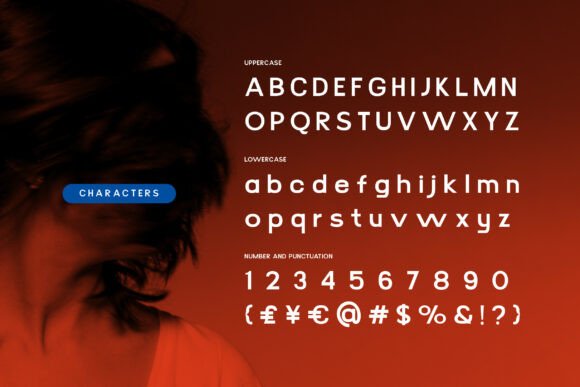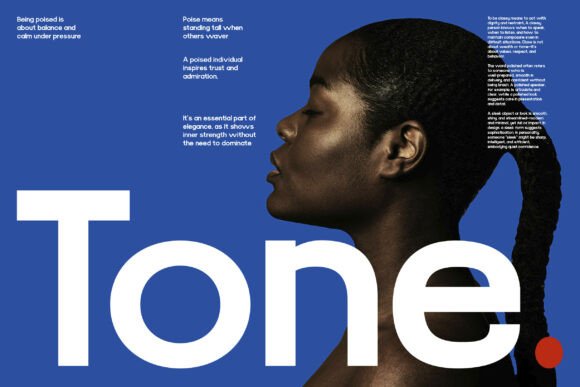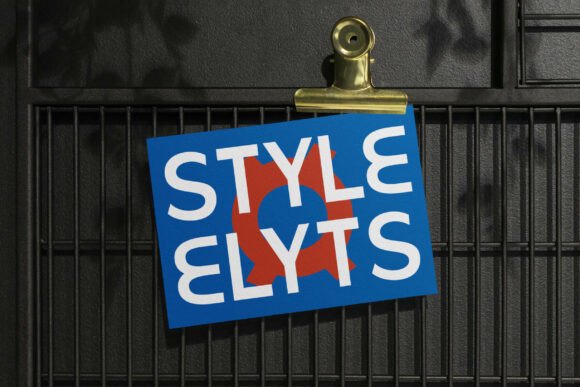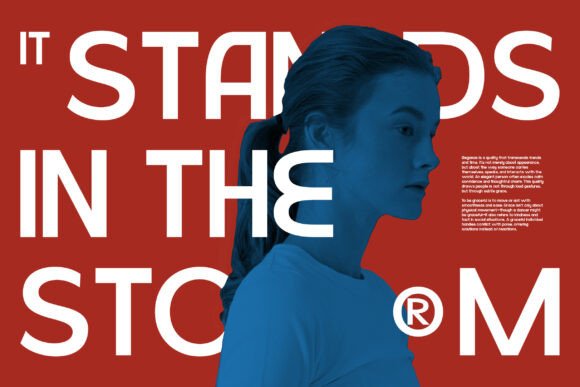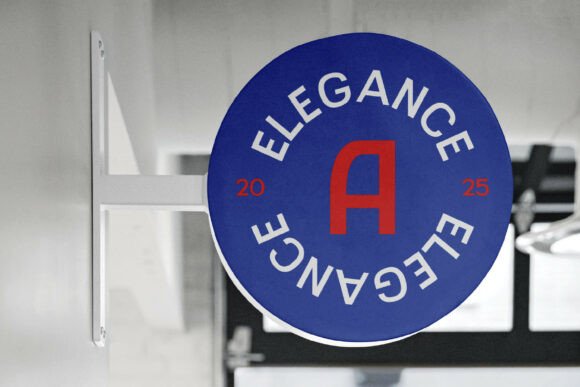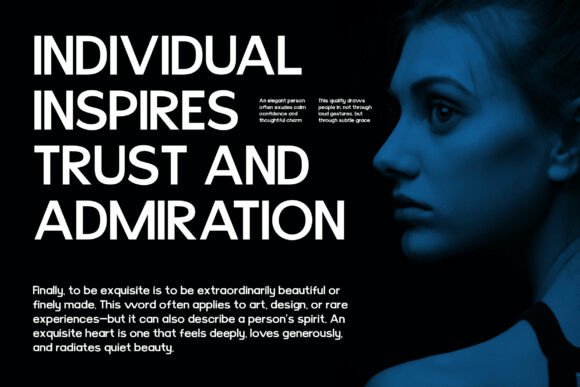
Introducing Elderino Font: The Epitome of Modern Minimalism and Sophistication
In the realm of typography, few fonts manage to strike a balance between modern minimalism and stylish sophistication as effortlessly as Elderino. This bold sans serif typeface has been meticulously designed to make a statement, making it the perfect choice for impactful headlines, clean branding, and a myriad of design applications that demand a confident and contemporary visual voice.
Design Philosophy and Features
Elderino’s design philosophy revolves around the fusion of sleek curves and geometric structures. This harmonious blend results in a highly versatile typeface that excels in both digital and print mediums. The font’s bold and sans serif characteristics ensure that it stands out, commanding attention and exuding a sense of modernity and sophistication.
Key features of Elderino include:
- Bold and Impactful: Designed to make headlines and titles pop, Elderino is the go-to choice for designers looking to create a lasting impression.
- Sans Serif Elegance: Its clean lines and sans serif design contribute to a sleek and contemporary look, perfect for fashion, tech, and creative branding.
- Versatile: Suitable for a wide range of applications, from fashion lookbooks and editorial layouts to modern packaging, tech branding, and creative portfolios.
- Geometric Sophistication: The geometric structure of Elderino lends it a sophisticated edge, making it ideal for high-end campaigns and luxury branding.
Applications of Elderino Font
The versatility of Elderino makes it a valuable asset for designers across various industries. Here are some of the key areas where Elderino truly shines:
Fashion Lookbooks and Editorial Layouts
In the fashion world, presentation is everything. Elderino’s stylish and modern aesthetic makes it perfect for fashion lookbooks, editorial spreads, and magazine titles, where standing out is crucial.
Modern Packaging and Tech Branding
For modern packaging and tech branding, a font that communicates innovation and sleekness is essential. Elderino’s geometric and bold features make it an excellent choice for product labels, tech company logos, and UI/UX interfaces.
Creative Portfolios and High-End Campaigns
Creatives and brands looking to showcase their work or launch high-end campaigns need a typeface that speaks of professionalism and style. Elderino, with its confident and contemporary voice, is tailored to meet these demands.
Why Choose Elderino?
Choosing Elderino for your design projects comes with several benefits:
- Legibility: Its clear and bold design ensures that messages are conveyed effectively, making it suitable for both digital screens and print.
- Uniqueness: Elderino stands out in a sea of sans serif fonts, offering a unique blend of modernity and sophistication.
- Versatility: From logos and branding to UI/UX and editorial design, Elderino adapts seamlessly across various mediums.
Elderino is more than just a font; it’s a design statement. Its bold sans serif presence, combined with a sleek and geometric structure, makes it the perfect tool for designers aiming to leave a mark. Whether you’re working on a fashion lookbook, a tech brand’s identity, or a high-end campaign, Elderino offers the perfect blend of modern minimalism and stylish sophistication. Elevate your designs with Elderino and give your brand the voice it deserves – a voice that is confident, contemporary, and captivating.